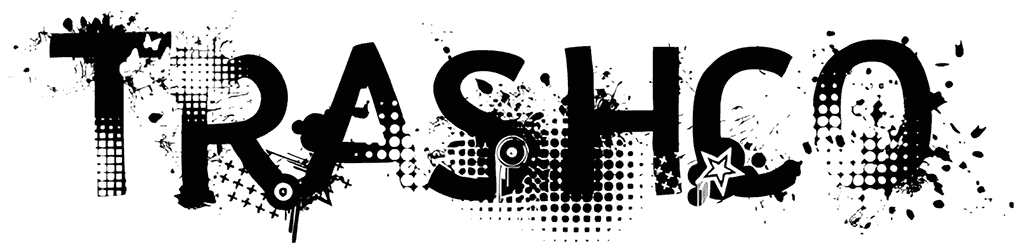
Trashco Font
Designed byloosydesign
Trashco is a destroyed font with a captivating style that inspires a sense of professionalism, precision, and momentum with a faded and dotty design. Professional graphic designers do not pay attention to the lack of lowercase letters and try this gangster font in packaging, posters, logos, billboards, and website templates to boost the visibility of their content.